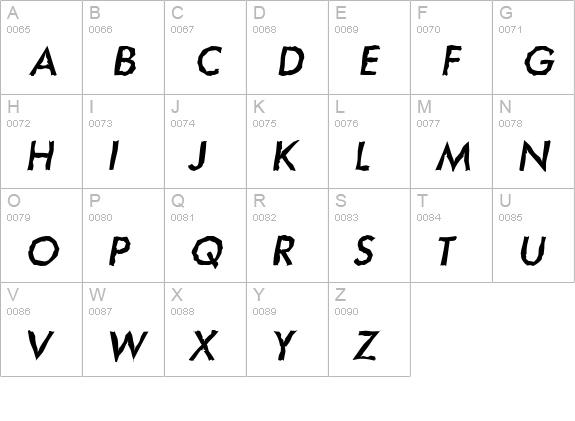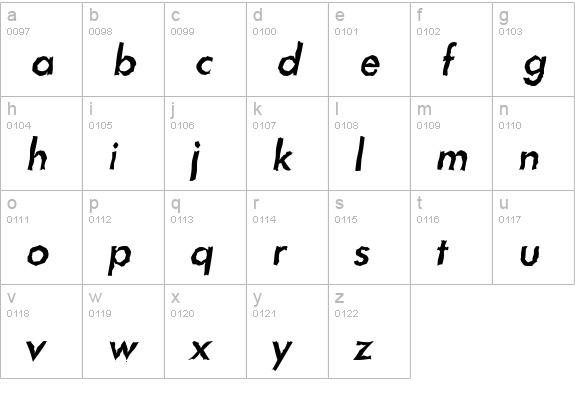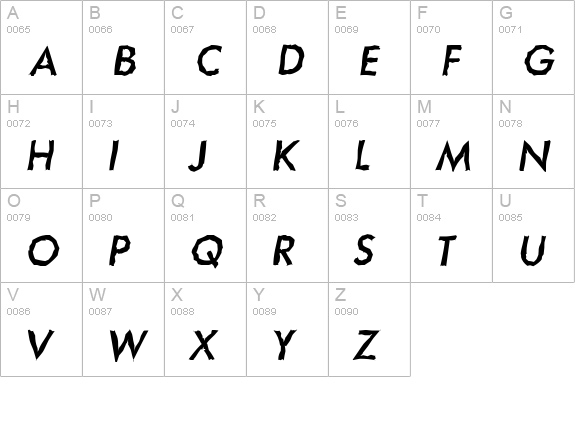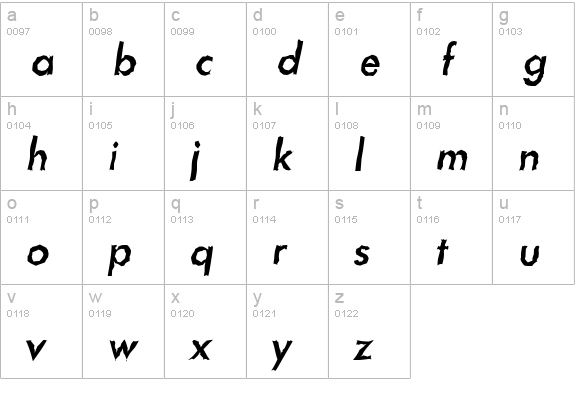
LimerickRandom-Medium-Italic is a balanced, medium-weight, italic variant in the LimerickRandom typeface family \xE2\x80\x94 well suited to sub-headlines, navigation, and balanced editorial work.
The LimerickRandom-Medium-Italic font is a whimsical and playful typeface that is sure to add a touch of charm to any design project. With its unique blend of medium weight and italic styling, this font is perfect for creating eye-catching titles, headings, and more. Not only does the LimerickRandom-Medium-Italic font exude character and personality, but it is also versatile and easy to read, making it suitable for a wide range of applications. Whether you're working on a poster, invitation, logo, or any other design project, this font will surely make your text stand out. Best of all, the LimerickRandom-Medium-Italic font is available for free download at FontsMarket.com. So go ahead and add this delightful font to your collection today and let your creativity flow!